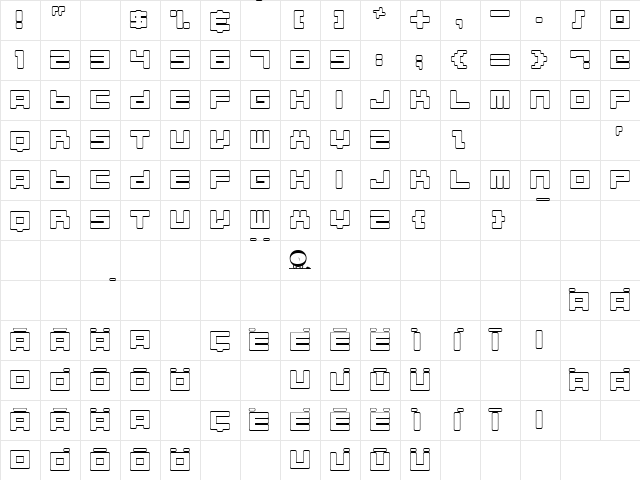
Almanaque Outline Regular
Design Context for Almanaque Outline Typeface
Almanaque Outline brings ornamental detail and strong personality to headlines and identities, where visual impact matters more than quiet functionality.
Font Pairing: Pair with a clean neutral sans-serif for body copy to let Almanaque Outline's character lead without overwhelming the composition.
Pro Tip: Treat Almanaque Outline as the centrepiece of your typographic hierarchy. One strong heading set in a decorative face can carry an entire layout.